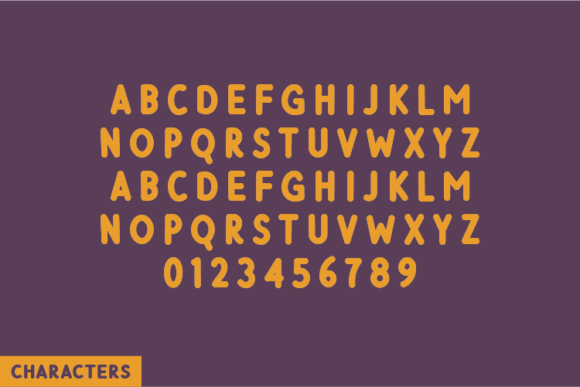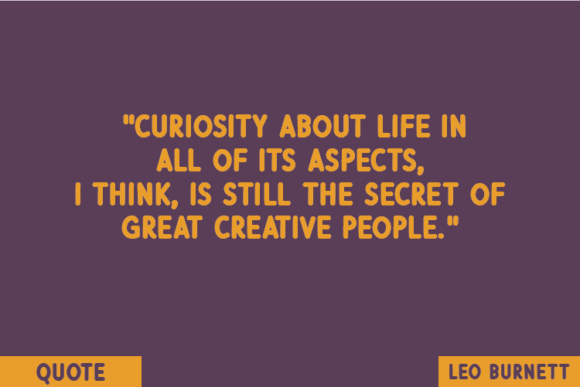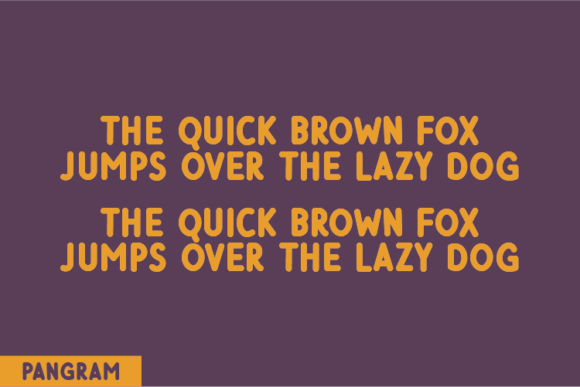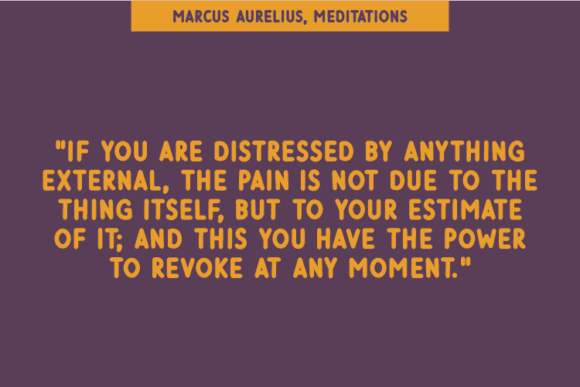
Introduction to Philostrate Font
As designers, we’ve all been there – staring at a blank page, waiting for inspiration to strike. For me, it’s often the sound of a pen scratching against paper that sparks a creative moment. The flow of ideas, the rhythm of words, and the beauty of handwritten typography all come together to create something truly unique. And that’s exactly what the Philostrate Font offers – a natural, handwritten font that’s as beautiful as it is functional.
With its high-quality design and transparent background, the Philostrate Font is the perfect addition to any design project. Whether you’re working on a creative project, designing a product, or simply need a unique font for your notes, this font is a valuable resource that’s sure to impress. And the best part? It’s available for free download, making it an accessible design resource for designers of all levels.
Key Features of Philostrate Font
- Features a unique, elegant design with a transparent background for versatility
- Perfect for use in various creative applications, including graphics, web design, and print media
- Includes a range of glyphs and characters, including ligatures and ornaments, to enhance your design
Honest Review: Philostrate Font
I recently came across the Philostrate Font and I must say, I was pleasantly surprised. As a designer, I’m always on the lookout for high-quality design resources to elevate my creative projects.
What works well: ✨ The Philostrate Font is incredibly versatile, with a range of styles and weights that can be used for anything from headings to body text. The transparent background is a nice touch, making it easy to use as a design element in creative projects. The font is also highly legible, making it perfect for use in digital and print applications.
Some limitations: ⚠️ While the Philostrate Font is free to download, it’s not compatible with all operating systems. This could be a problem for designers who work on multiple platforms. Additionally, the font is not as comprehensive as some other font families, with limited language support and no italic or bold styles for some characters.
Overall, I’m impressed with the Philostrate Font and would definitely recommend it as a design resource for creative projects. It’s a great option for designers who are looking for a high-quality, free font that’s easy to use.
- Legible and versatile
- No italic or bold styles for some characters
Philostrate Font is ideal for a variety of design projects, including logos, branding materials, and marketing collateral. Its high-quality design makes it a valuable resource for any creative endeavor.